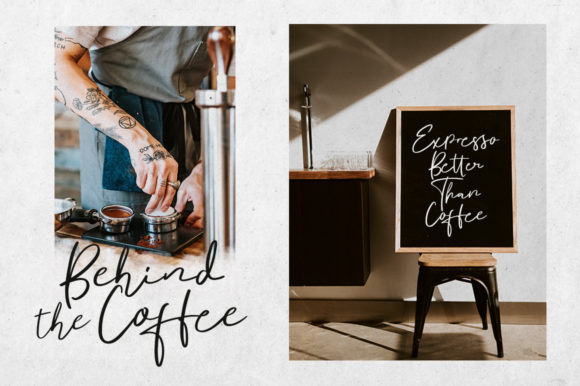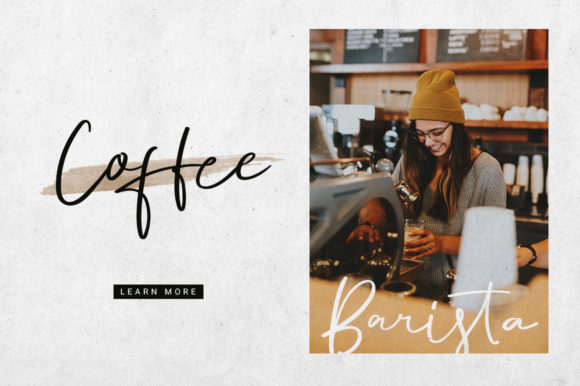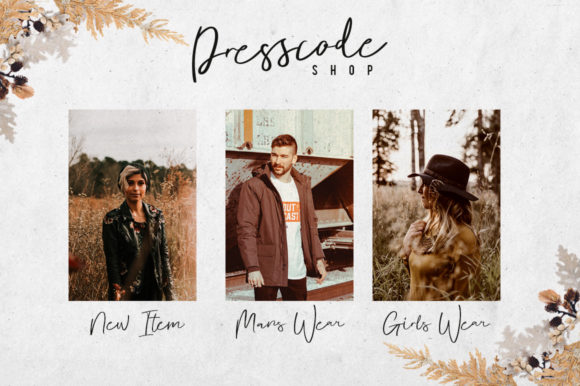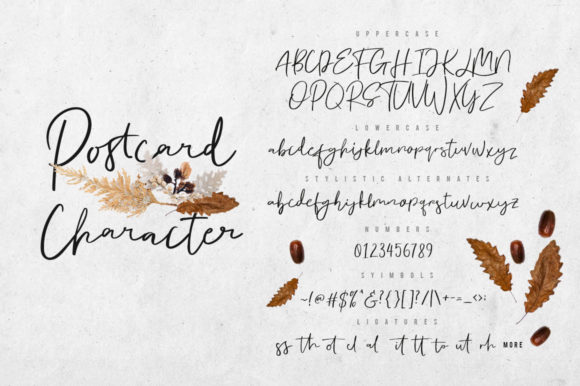
About Postcart Script Font
Postcart Script is a relaxed, simple and adaptable script font. It has a classy, elegant and modern look that can be used for logos, branding, invitations, stationery, wedding designs, social media posts, and much more!